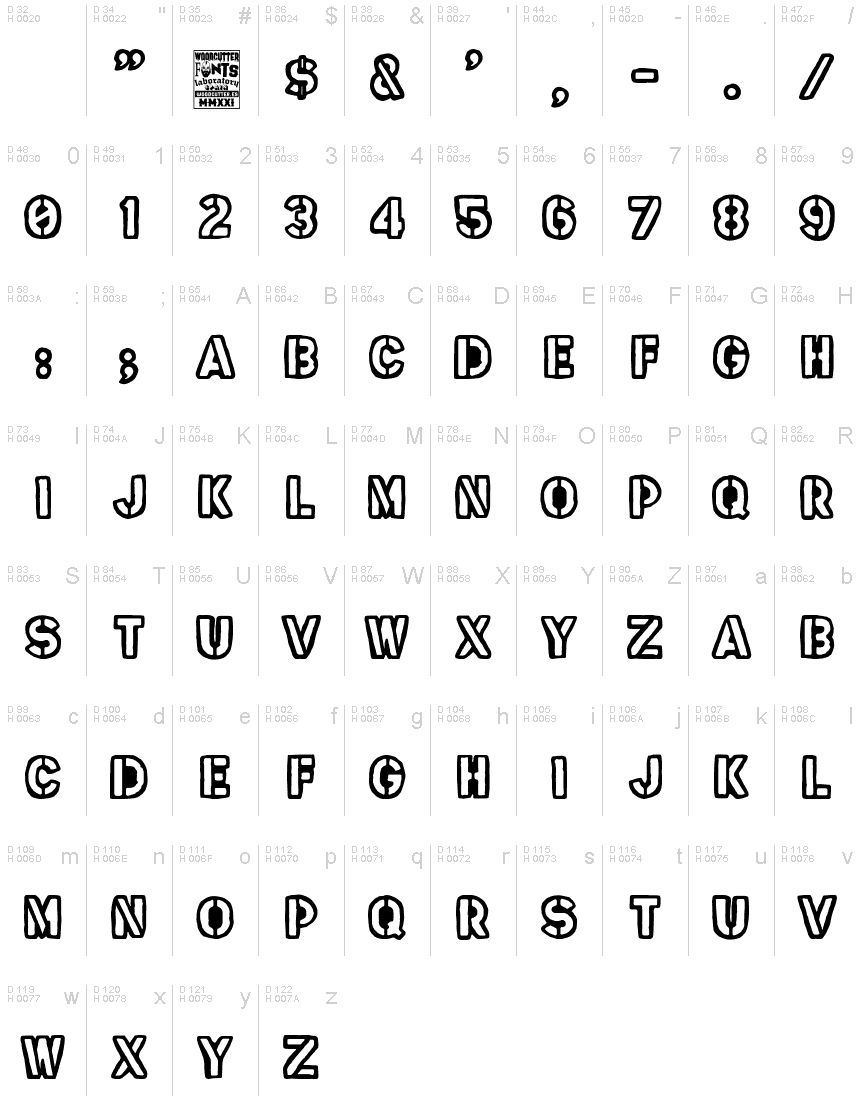
Big Storm Stencil
Introducing Big Storm Stencil, a bold, wide eroded stencil display font designed by Woodcutter Manero. This font is perfect for making an impactful statement in projects such as posters, logos, and signage.